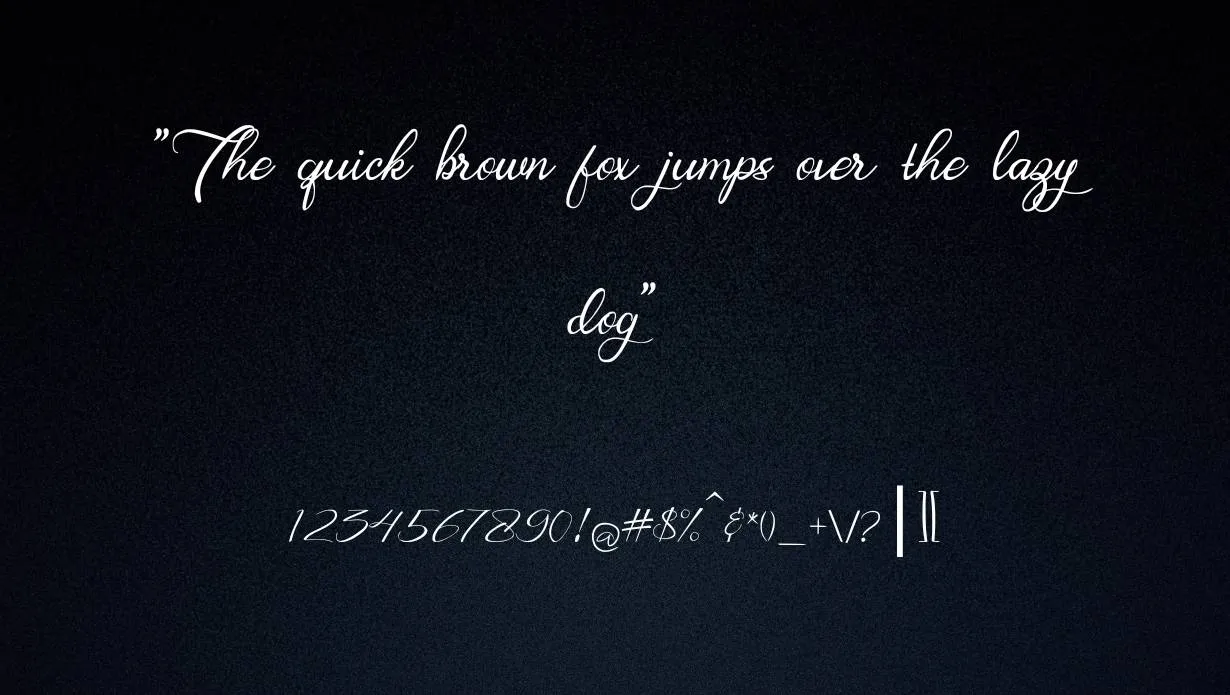
Bring Heart font is the friendly font that wraps your words in warm hugs. It’s like a comforting embrace, making it ideal for heartfelt messages or creating a warm atmosphere. The weight of Bring Heart is gentle, giving your text a soft and inviting feel. Its width is warmly proportioned, creating a comforting visual balance.
| Name | Bring Heart Font |
| Designer | Rochadi Sudarma |
This font turns your words into a cozy and inviting space, making them feel like a comforting blanket of kindness.